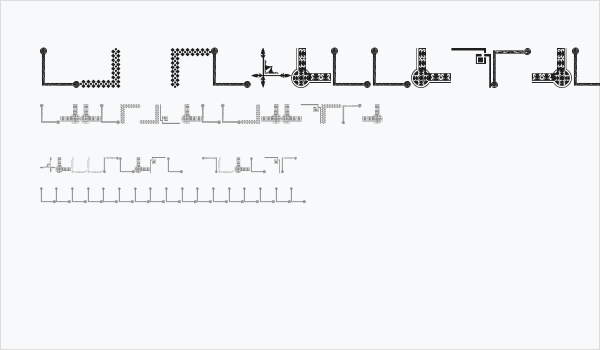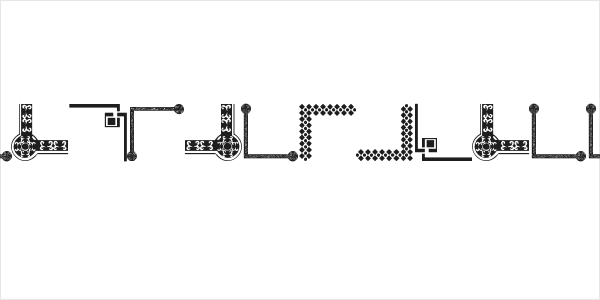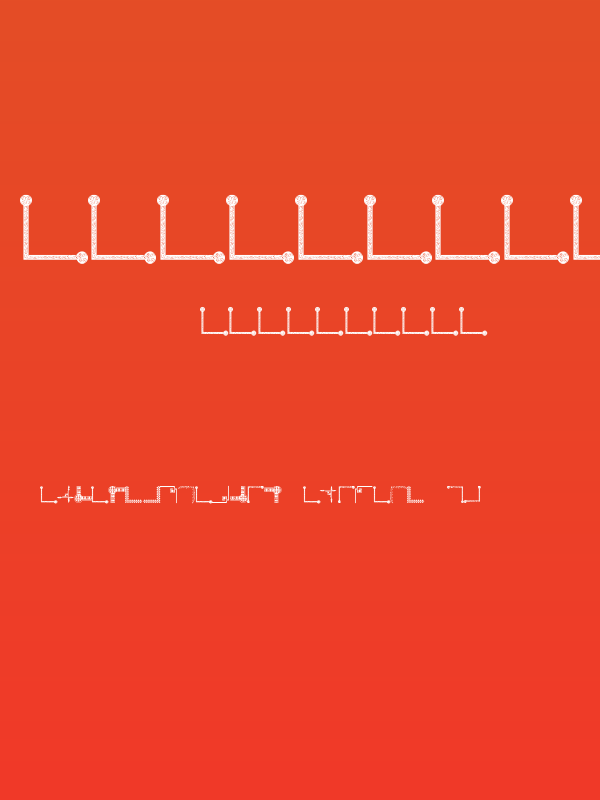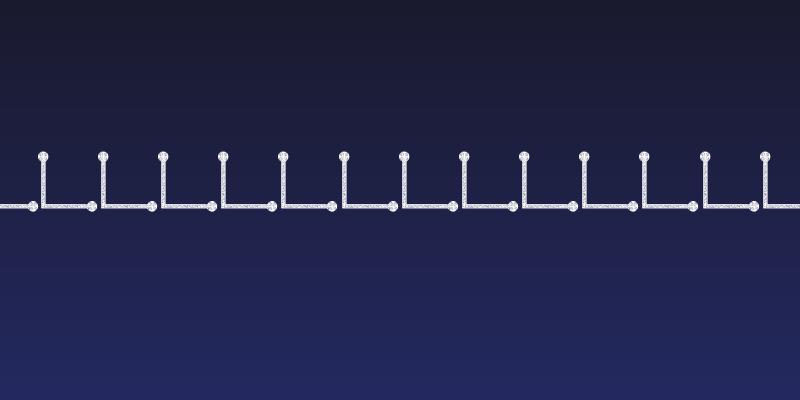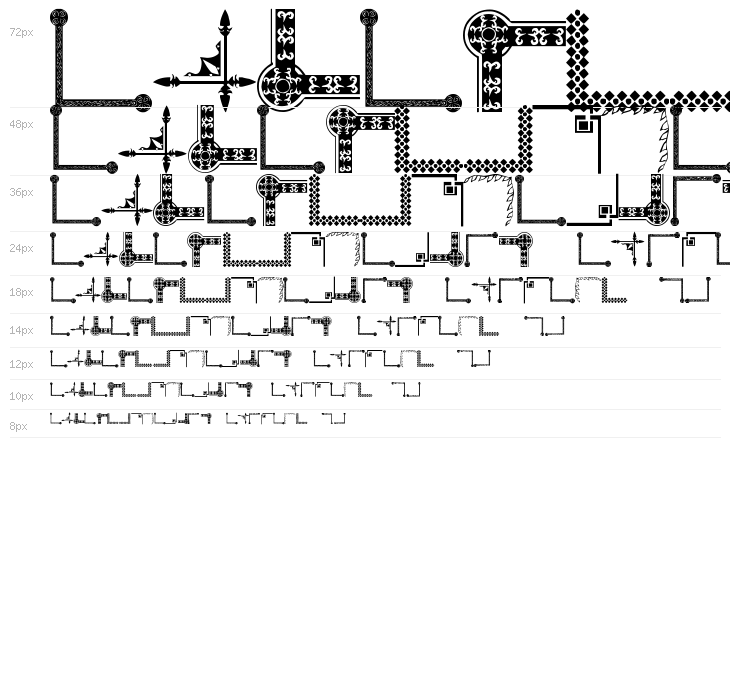
Vintage Decorative Corners 9 Font
Vintage Decorative Corners 9 Description
A collection of ornate, vintage-style decorative corner elements featuring intricate patterns, geometric shapes, and flourishes. Each corner design varies in detail, including dots, lines, curls, and ornamental motifs, suitable for embellishing borders or frames.
| Overall Style | Vintage, Decorative |
| Use Case | Borders, Frames, Decorative accents |
| Proposed Projects | Invitations, certificates, book covers, vintage posters, scrapbooking, decorative borders. |